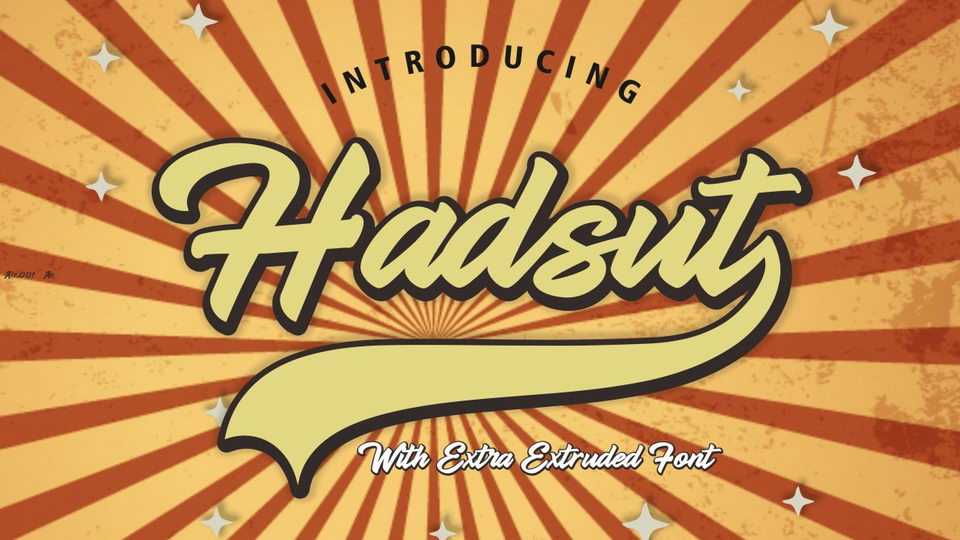
Download Hadsut font, is a beautiful hand lettered script in retro style. It was inspired from the famous retro typography designs. Handsut great for logo, brandng, posters and more.